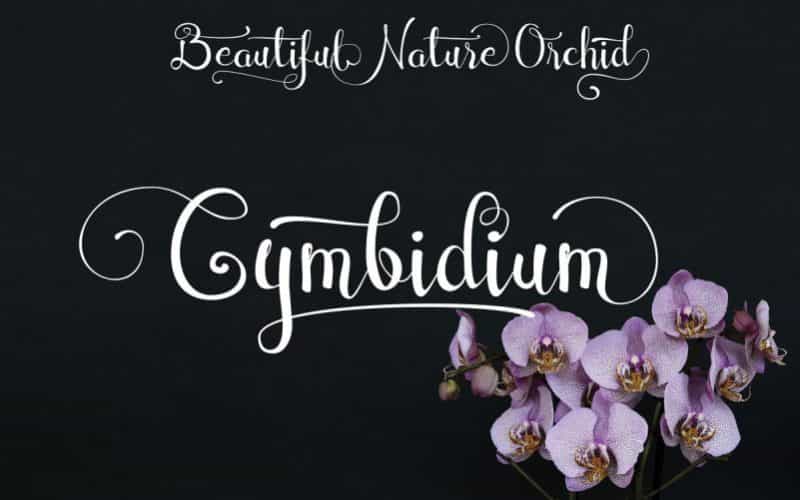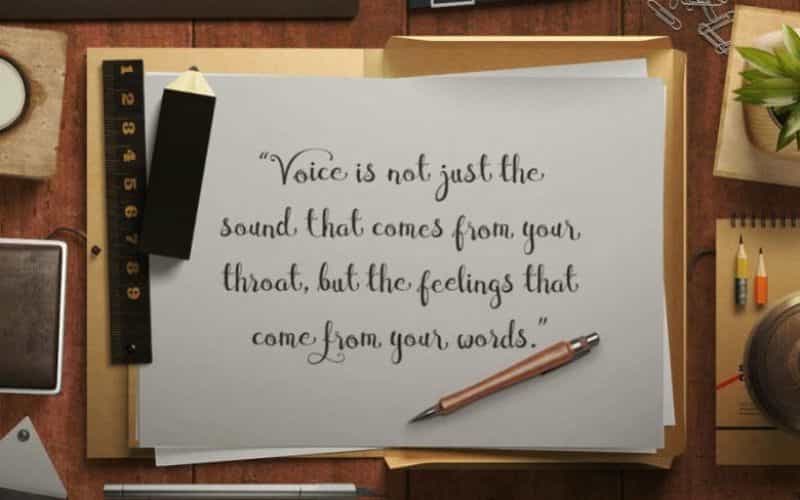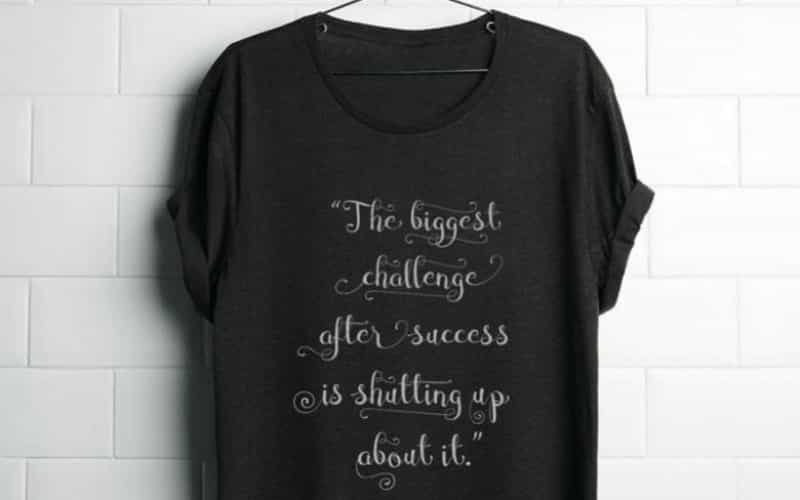
Discover Cymbidium Calligraphy Font, part of the Calligraphy collection—a versatile and unique font perfect for adding a personal touch to your projects. Download it for free and enjoy crafting designs with style, from invitations to social media posts. This font is available exclusively for personal use, giving you the freedom to create without limits. Unlock your creativity with Cymbidium Calligraphy Font today!
Introducing adorable and playful script, with the natural and dynamically handmade touch. This font has two alternates for each lowercase letter to make sure that there is no same letter in a pair, and of course, there are hundreds of swashy characters to make your text so pretty like the orchid flower!